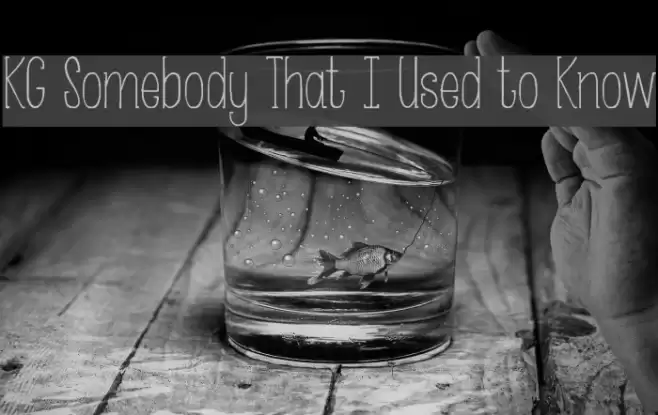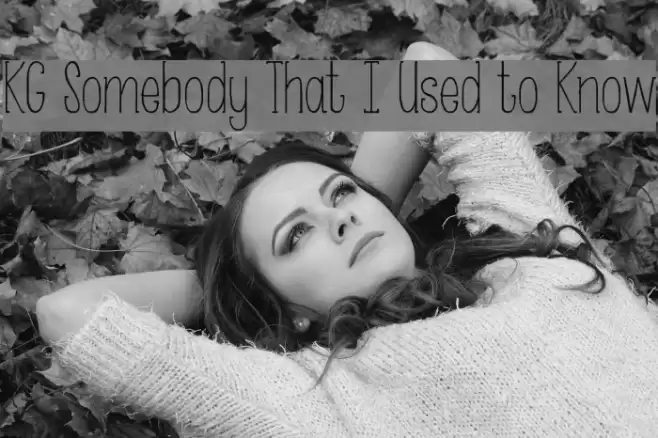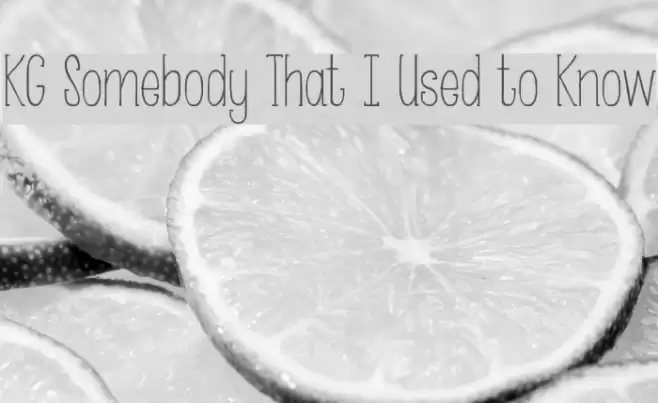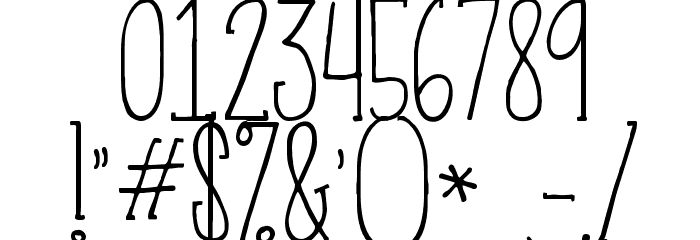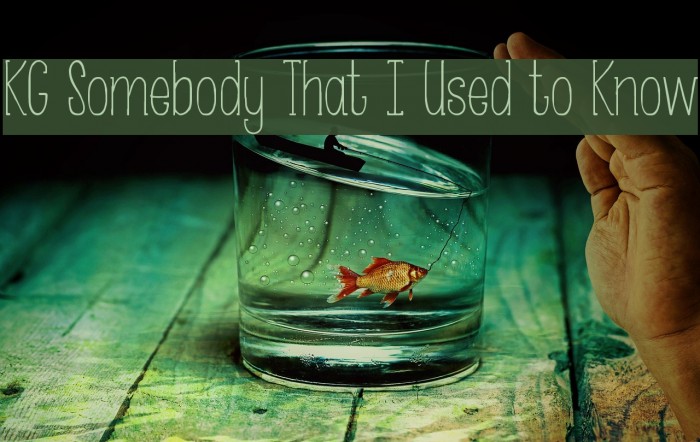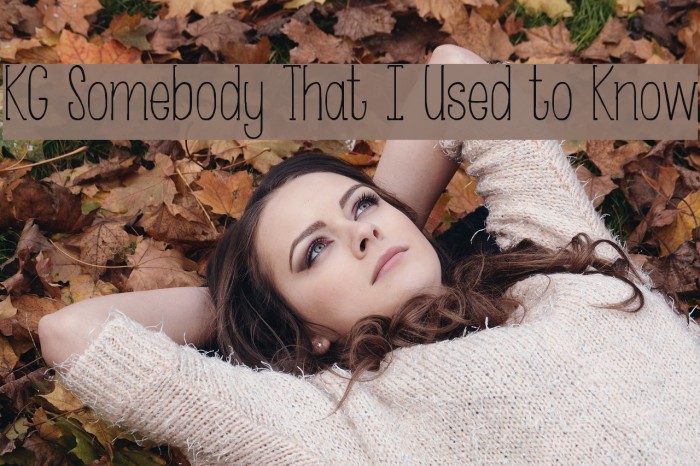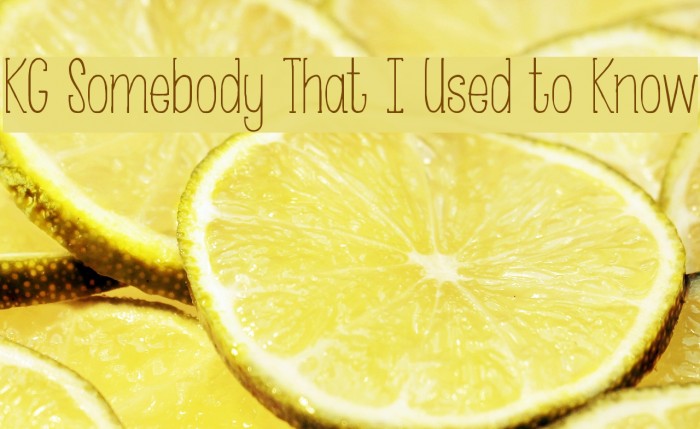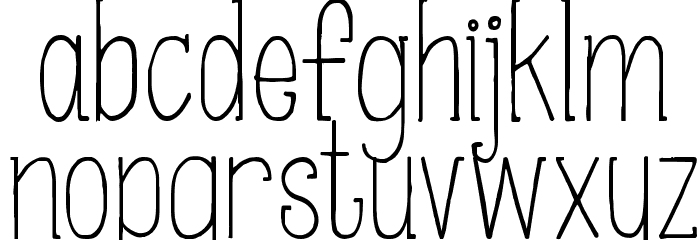
KG Somebody That I Used to Know Font
KG Somebody That I Used to Know Description
This font features a tall, narrow design with a playful and whimsical character. The letters are elongated with a slight curve, giving them a hand-drawn appearance. The uppercase letters are particularly tall, while the lowercase letters maintain a consistent height, creating a harmonious balance. The numerals and special characters follow the same slender and quirky style, making the font suitable for creative and informal projects. The strokes are consistent in width, providing a clean and legible look despite the decorative nature.
A tall, narrow, and whimsical font with a hand-drawn appearance from Uncategorized fonts.
- Proposed Projects: Ideal for children's books, playful branding, greeting cards, and creative posters.
- Overall Style: Playful and Whimsical
- Use Case: Headlines, Logos, Creative Projects